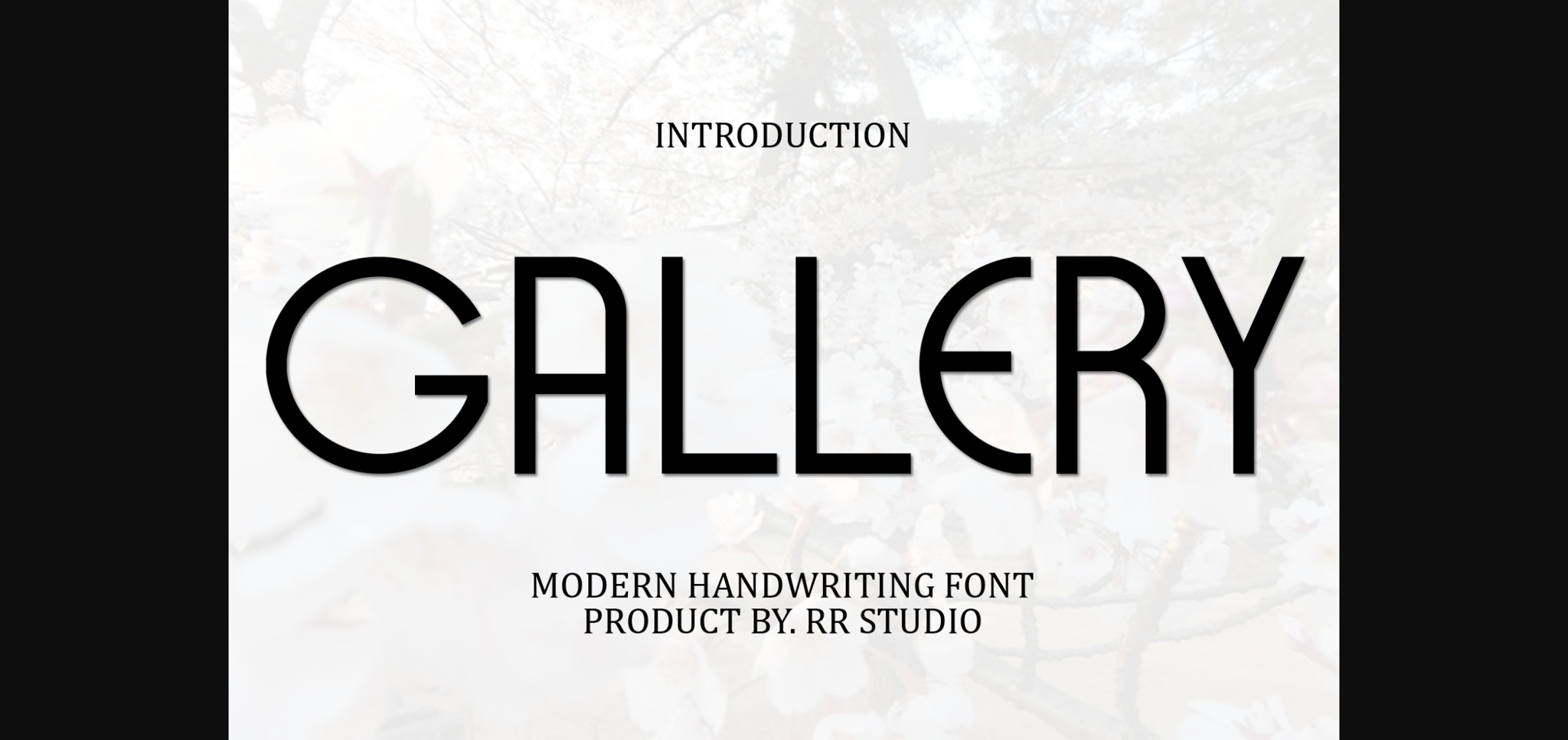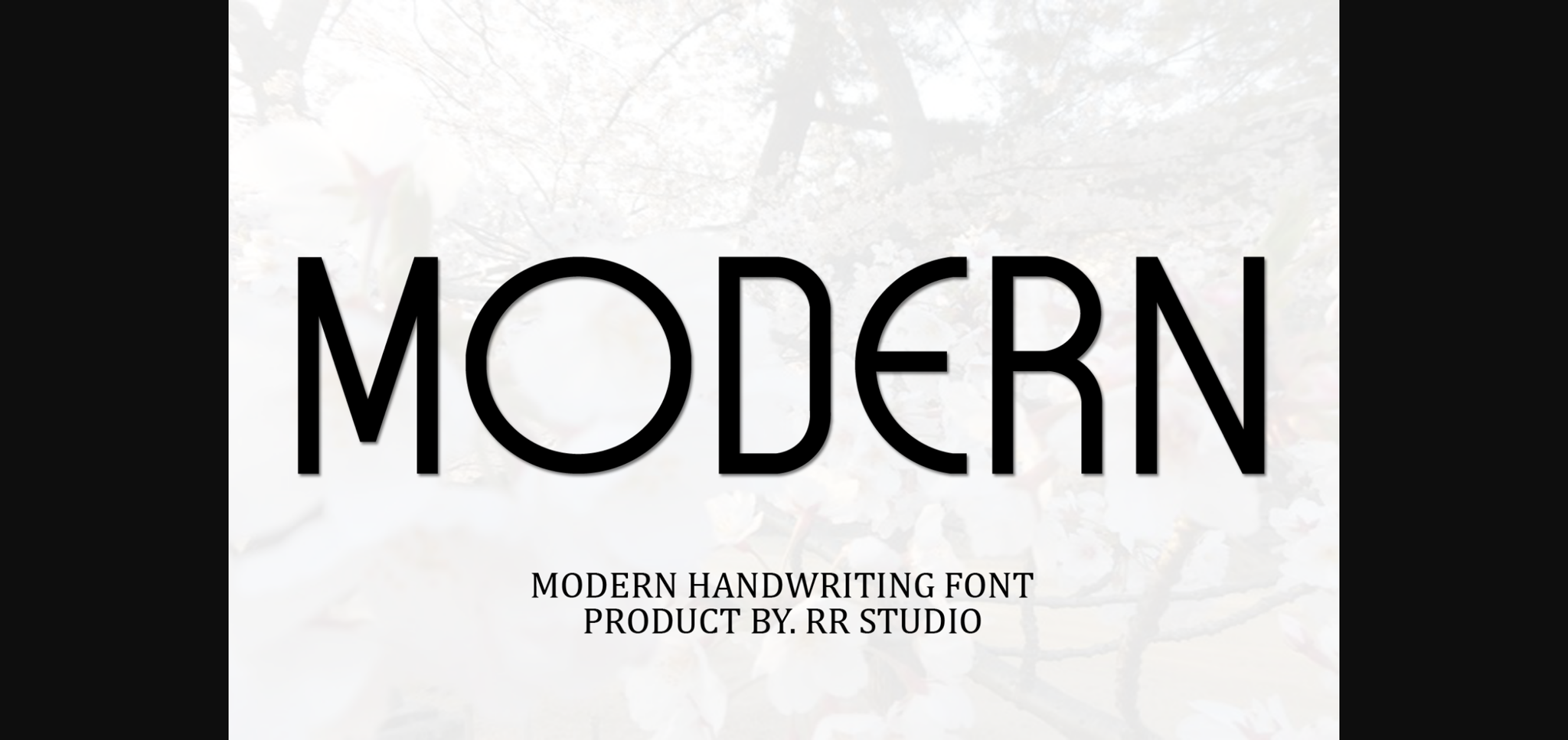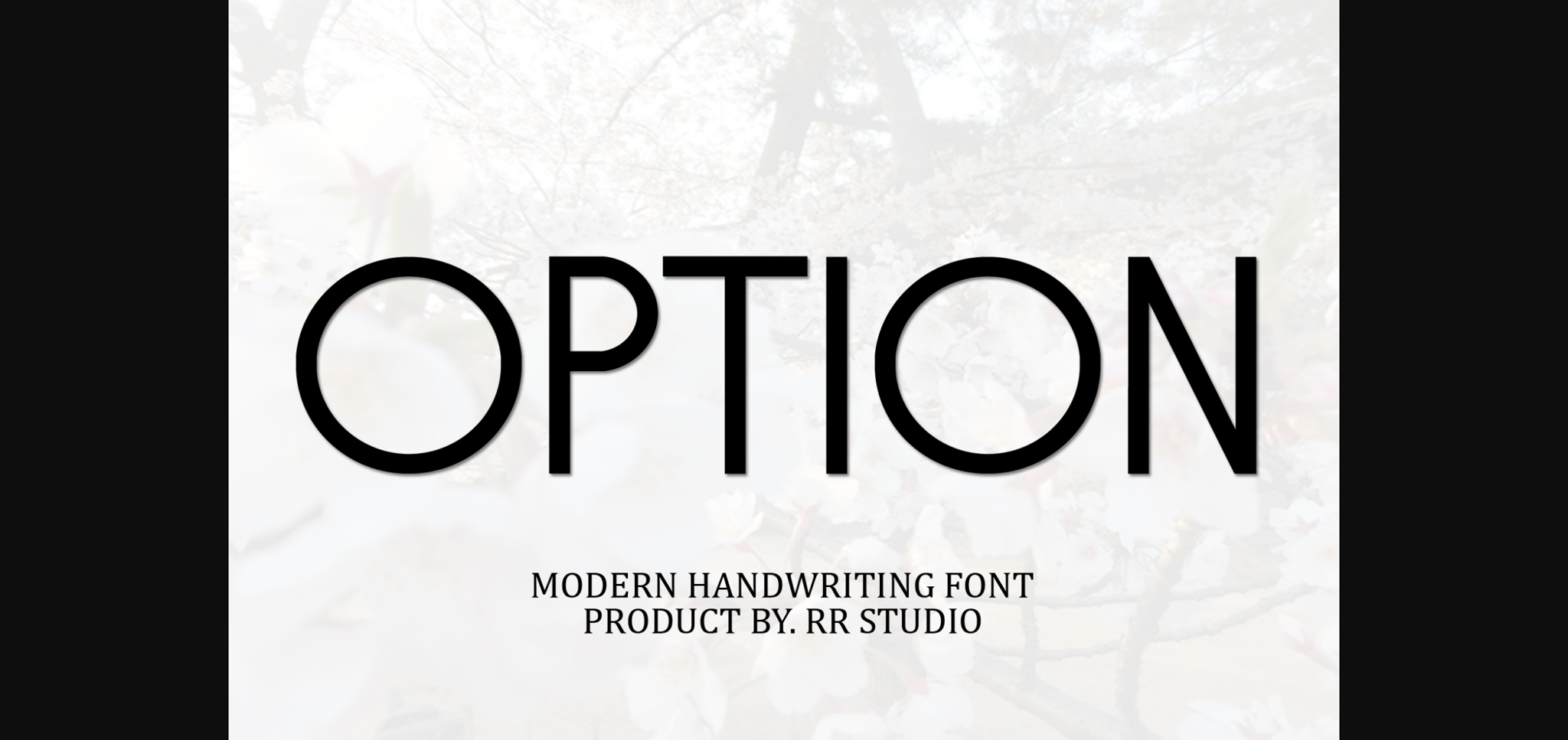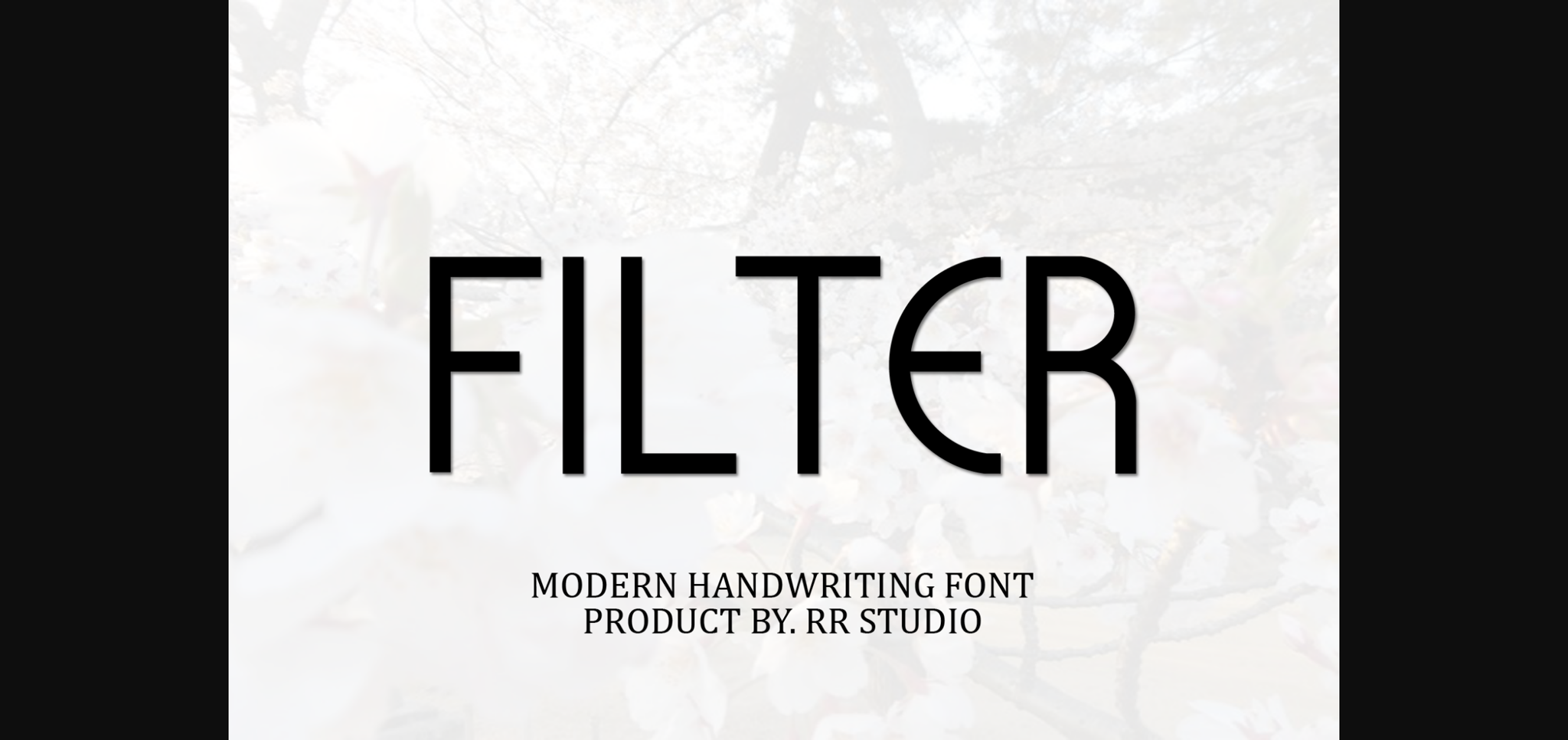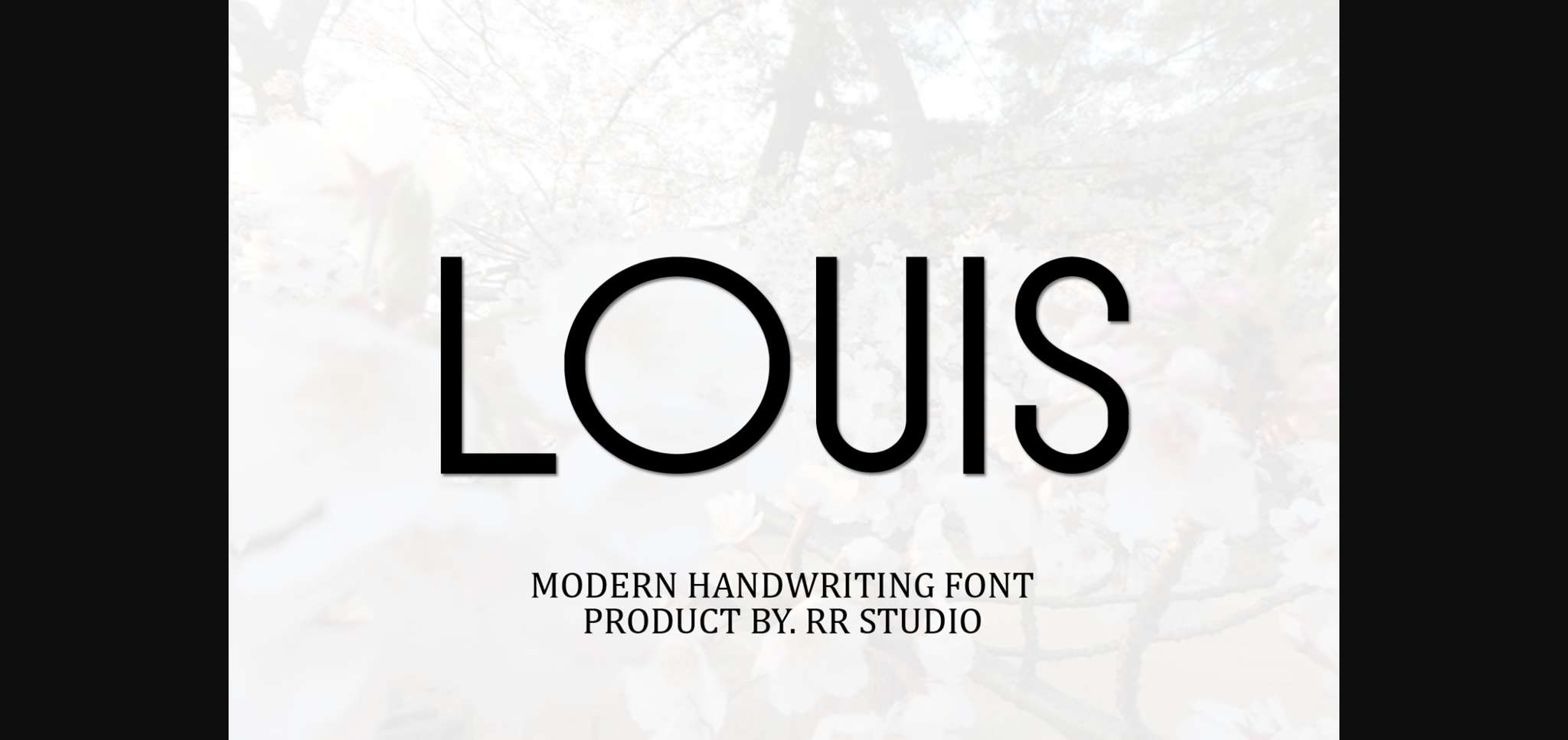
Gallery Font
About Gallery Font
Gallery is a sleek and fresh sans-serif font that embodies modern simplicity. With clean lines and contemporary letterforms, it exudes sophistication. Ideal for projects seeking a refined and versatile aesthetic, Gallery adds a touch of elegance to your creative expressions.